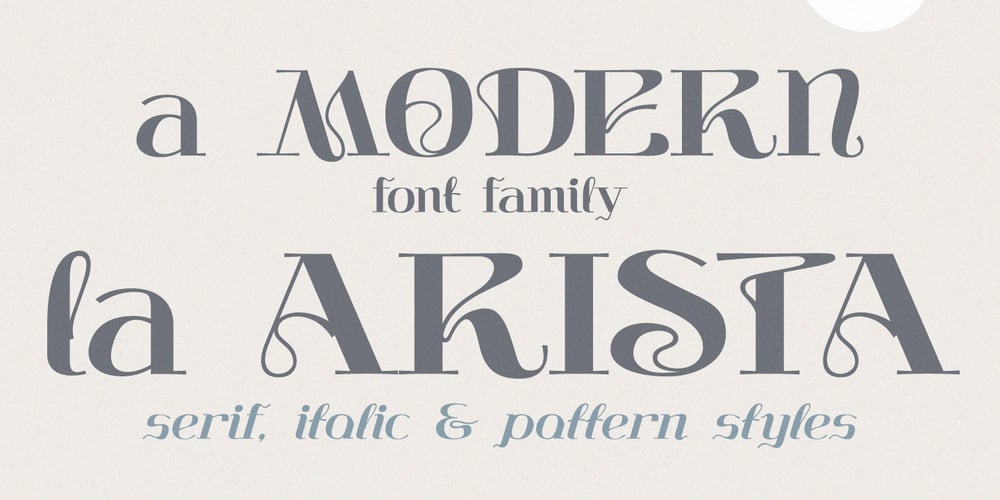
La Arista
La Arista font
La Arista Font Family was designed by Roman Korolev and published by Kaer. La Arista contains 3 styles and family package options. ‘La Arista Del Sol’ it’s the mountains climbing route. I’ve created this font family to transfer adventure and romantic mood. I believe La Arista is very useful in printing and for web.* Regular, italic and pattern styles* Uppercase and lowercase* Numbers* Ligatures* Punctuation* Multilingual supportPlease feel free to request to add characters you need: kaer.pro@gmail.com